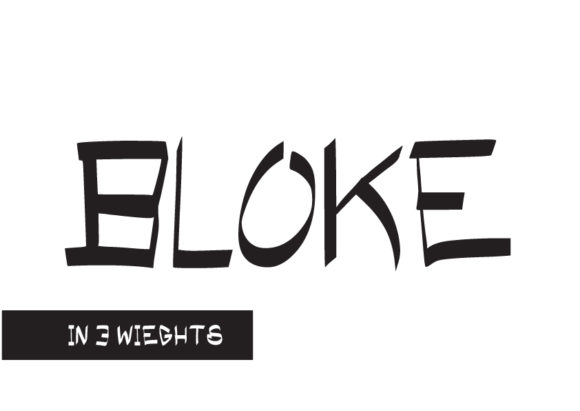
Behold, the Bloke Font: the ultimate weapon for your academic posters, ready to conquer the world of typography! With its bold graffiti-inspired strokes, Bloke is a font that commands attention. Its three distinct versions offer a captivating array of styles, empowering you to craft posters that ignite imagination and leave a lasting impact.
Bloke Regular exudes an air of raw energy, with its edgy hand-drawn characters that dance across the page. Unleash your creativity with this font and watch your posters transform into vibrant expressions of your academic prowess.
Bloke Italic adds a touch of sophistication to your designs, with its fluid strokes that flow effortlessly across the canvas. Its elegant slant lends a touch of grace to your posters, making them stand out from the crowd.
Bloke Outline, the rebel of the family, bursts onto the scene with its bold, outlined characters. This font is perfect for making a statement, ensuring that your posters demand attention and incite curiosity.
Each version of Bloke Font is crafted with meticulous detail, ensuring that your posters not only deliver information but also captivate the senses. Its versatility knows no bounds, allowing you to create posters that range from thought-provoking to downright awe-inspiring.
So, ignite your passion for academic excellence and embrace the power of Bloke Font. Let your posters soar to new heights of creativity, leaving an unforgettable mark on the world.